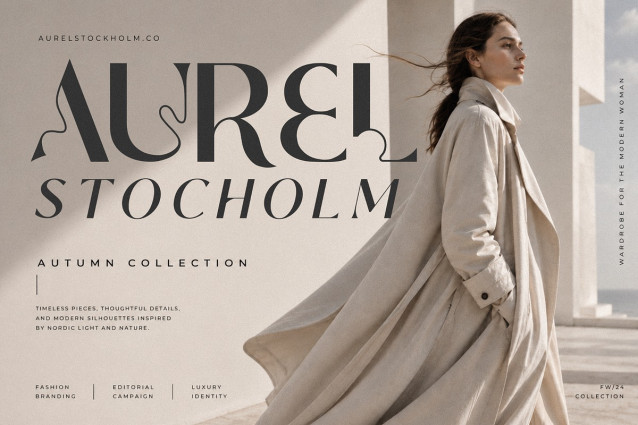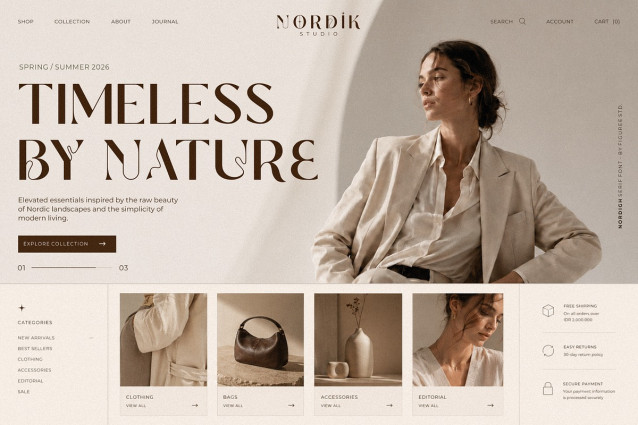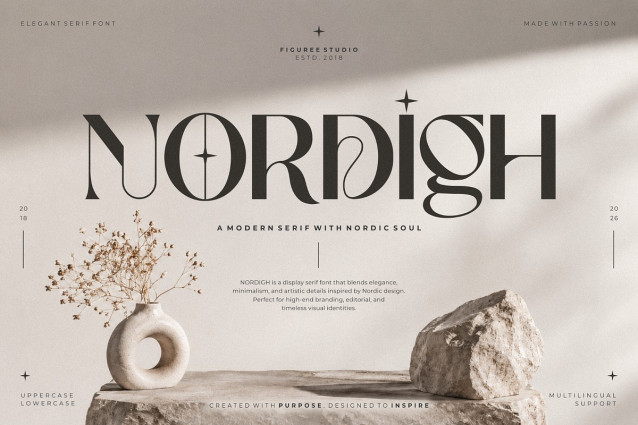
Nordigh Font
Nordigh Font – Serif Display Font (With Nordic Soul). Designed with expressive serif details and a strong display presence, Nordigh delivers a distinctive look for titles, creative layouts, printed materials, and visual storytelling projects.
Inspired by Nordic mood and timeless forms, this typeface balances structure and personality while remaining versatile across different design directions. The font includes both Regular and Italic styles, giving designers more flexibility when creating contrast, emphasis, and layered typography compositions.
Nordigh works especially well for editorial spreads, posters, book covers, invitations, presentation titles, packaging layouts, social content, website headers, and creative publishing projects. Its display style allows text to become a visual element while maintaining readability.
The combination of uppercase, lowercase, symbols, and multilingual support makes it suitable for a wide range of languages and applications. Whether used for a dramatic headline or a refined subtitle, Nordigh helps create typography with presence and mood.